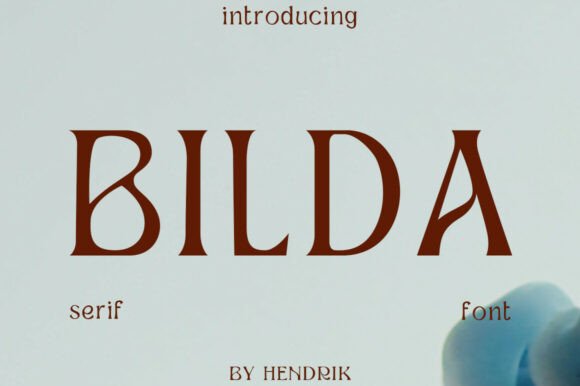
The Elegant World of BILDA Font: A Designer’s Delight
I’ll never forget the time I was working on a luxury fashion brand project, and my client asked for a font that exuded elegance, sophistication, and timelessness. I scoured the internet, tried countless fonts, but nothing seemed to fit the bill. That was until I stumbled upon BILDA Font. ✨
Its bold letterforms, elegant serif details, and balanced proportions immediately caught my attention. I knew right then and there that BILDA was the perfect fit for my project. In this article, I’ll share with you why BILDA Font has become a staple in my design toolkit and how you can make the most of its stunning features.
An Honest Review of BILDA Font
What I Love About BILDA Font
- ✨ Luxurious and Professional Feel: BILDA’s classic and modern elements blend seamlessly, creating a sophisticated visual identity.
- ✅ Excellent Readability: The balanced letter proportions make it comfortable to read, even at smaller font sizes.
- ✨ Versatile and Flexible: Suitable for a wide range of design projects, from premium branding to social media designs.
- ✅ Elegant Serif Details: The subtle serif curves add a touch of refinement and elegance to any design.
While BILDA Font is an exceptional font, there are a few minor quirks to be aware of:
The Story Behind BILDA Font
BILDA Font was designed with the goal of creating a luxurious and professional font that blends classic and modern elements. The designer aimed to craft a font that would be both elegant and versatile, suitable for a wide range of design projects. While the exact design process is unknown, it’s clear that BILDA Font was created with attention to detail and a passion for typography.
| Font Name | Bilda Font |
| Author | Hendrik studio |
Q: What is BILDA Font?
A: BILDA Font is a serif font that blends classic and modern elements, creating a luxurious and professional visual identity.
Q: What design projects is BILDA Font suitable for?
A: BILDA Font is suitable for premium branding, logos, editorials, product packaging, posters, and social media designs that aim to appear classy and exclusive.
Q: Does BILDA Font support OpenType features?
A: Yes, BILDA Font supports OpenType features, including stylistic alternates, ligatures, and glyphs.